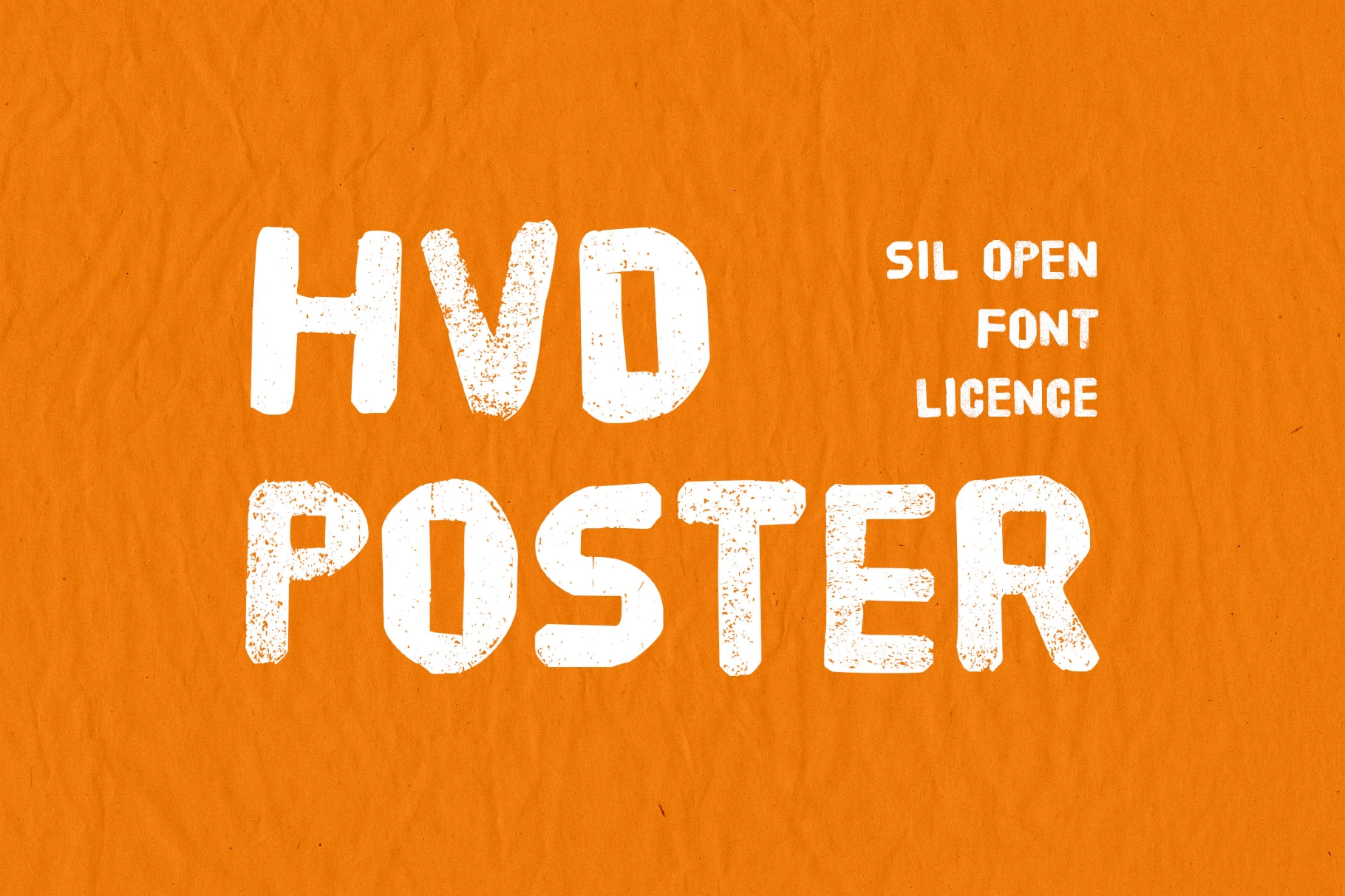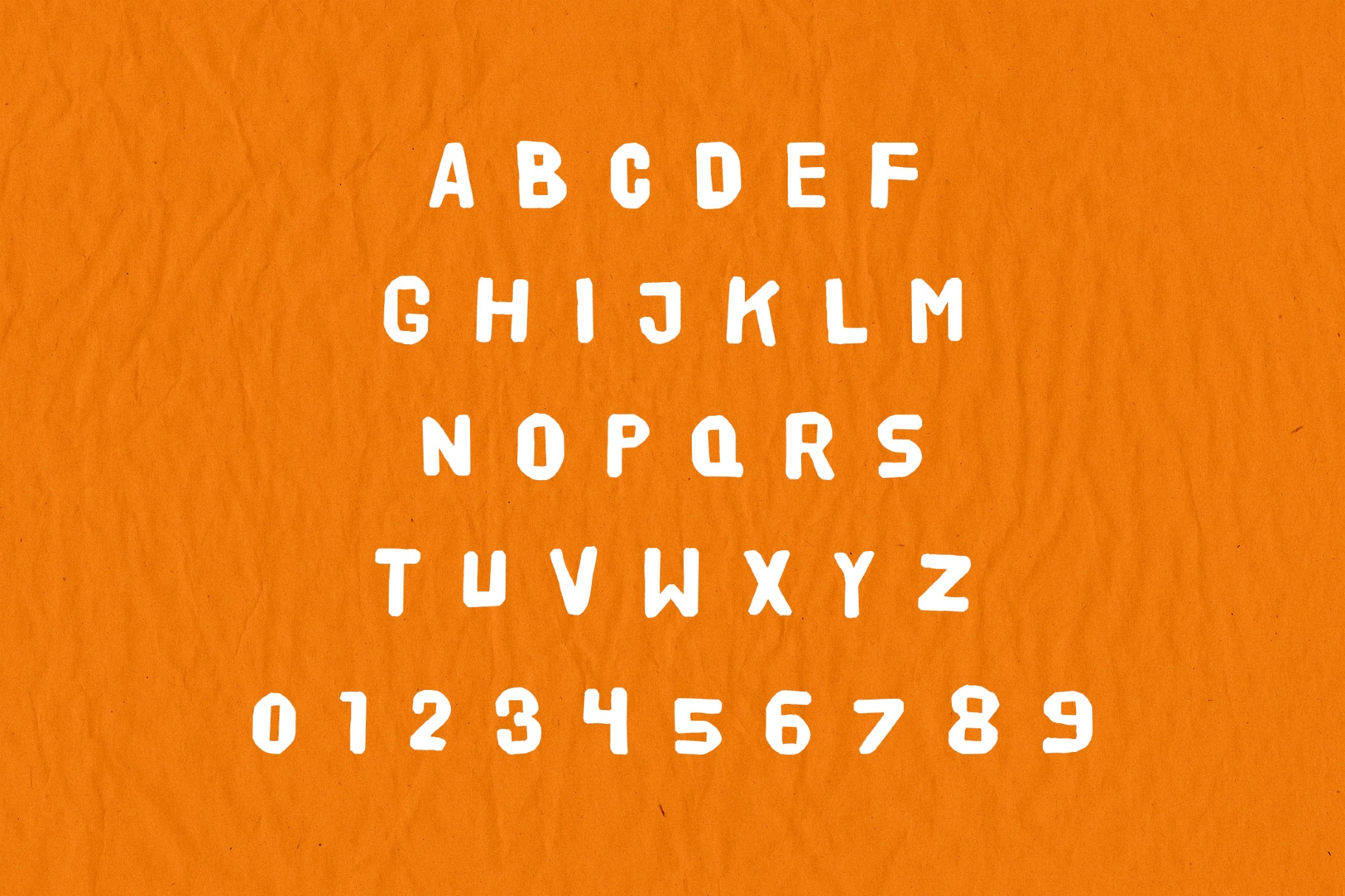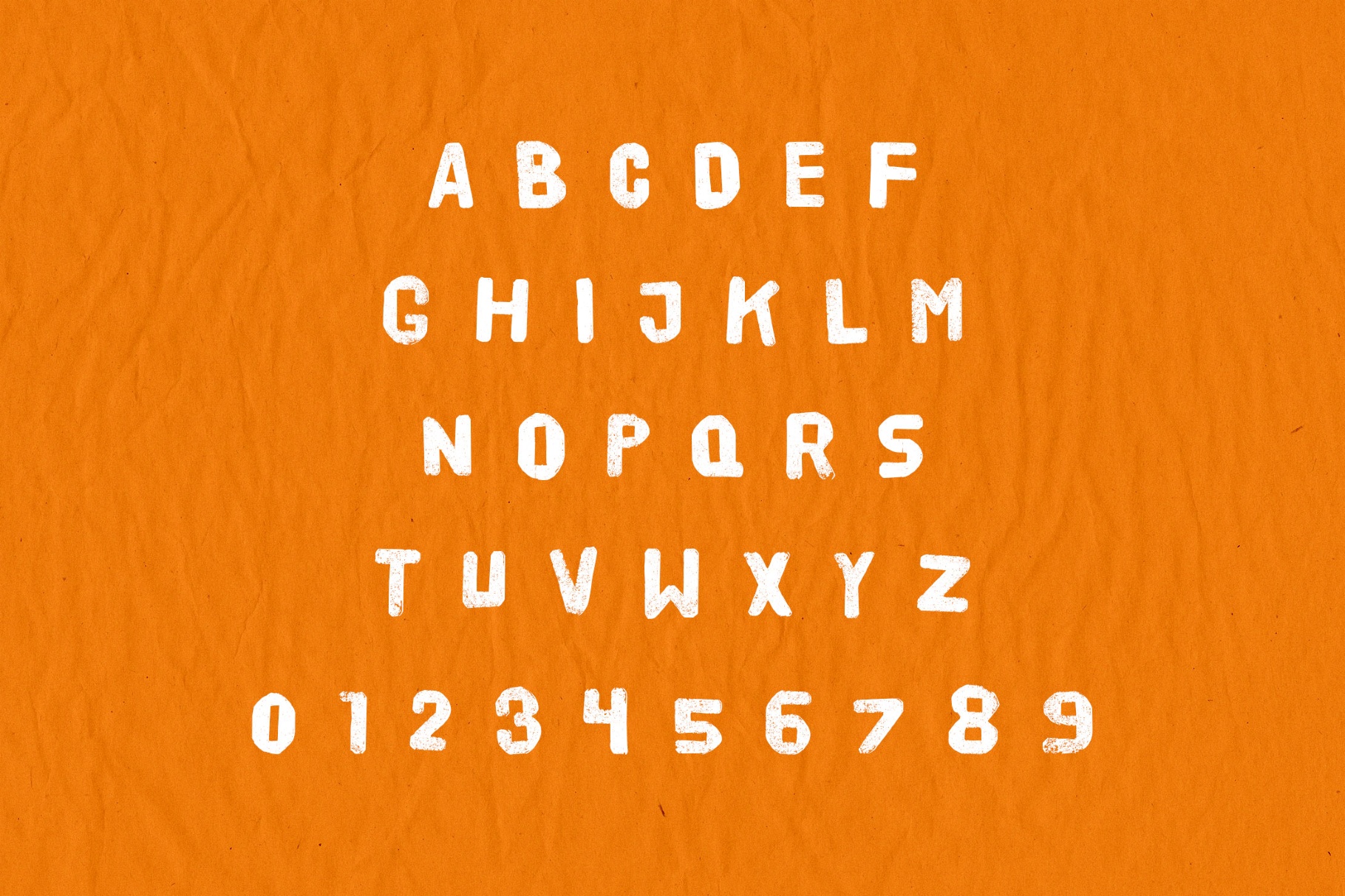
HVD Poster Font
The HVD Poster font stacks tall, condensed letterforms with the punch of mid-century woodtype broadsides and utilitarian headlines. Its tightly packed rhythm, strong silhouette, and hard geometry suit titles and magazine mastheads, event branding, web hero sections, packaging fronts, storefront signage, editorial openers, and social ads.
- Uppercase letters.
- Numbers, punctuation, dingbats, and symbols.
- Multilingual support across extended Latin scripts.